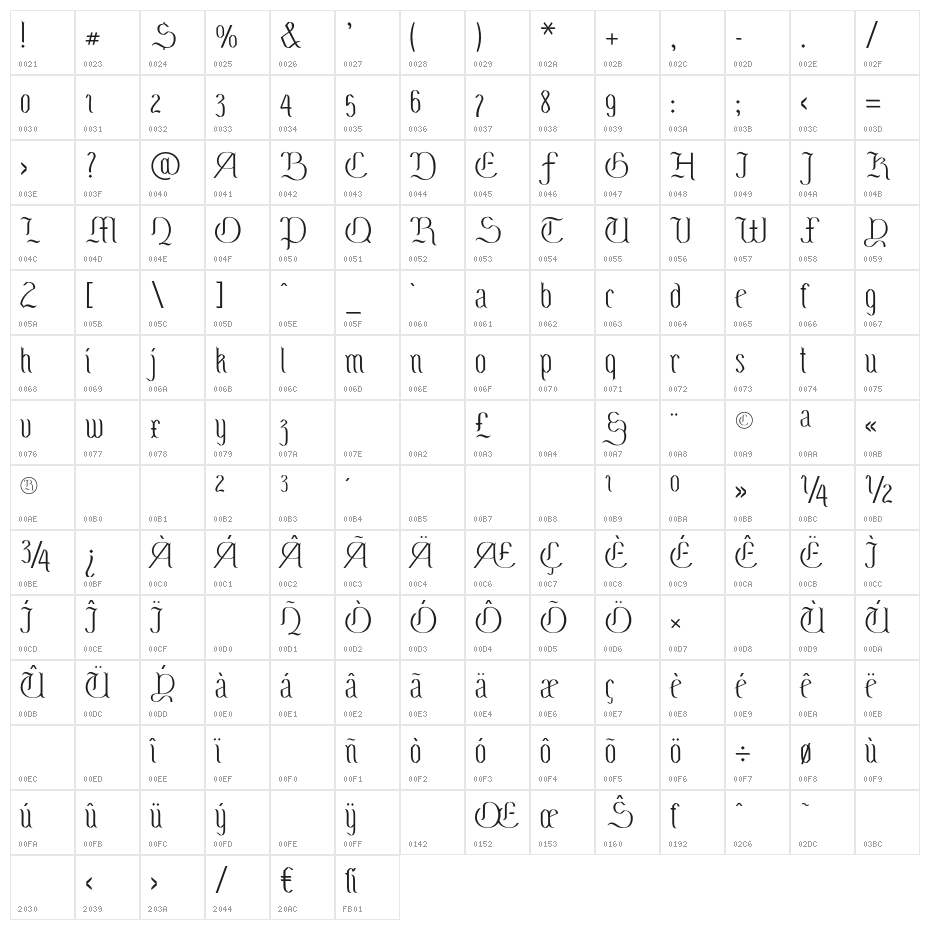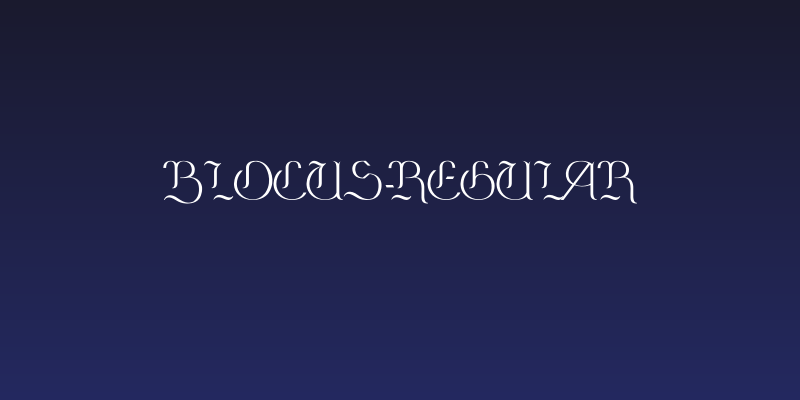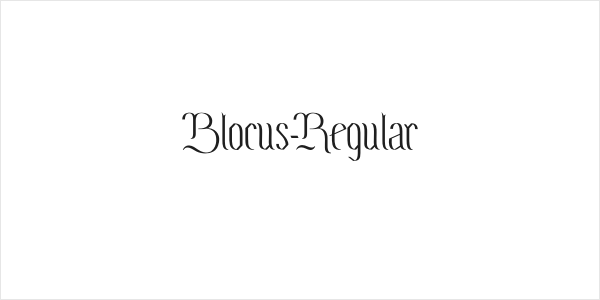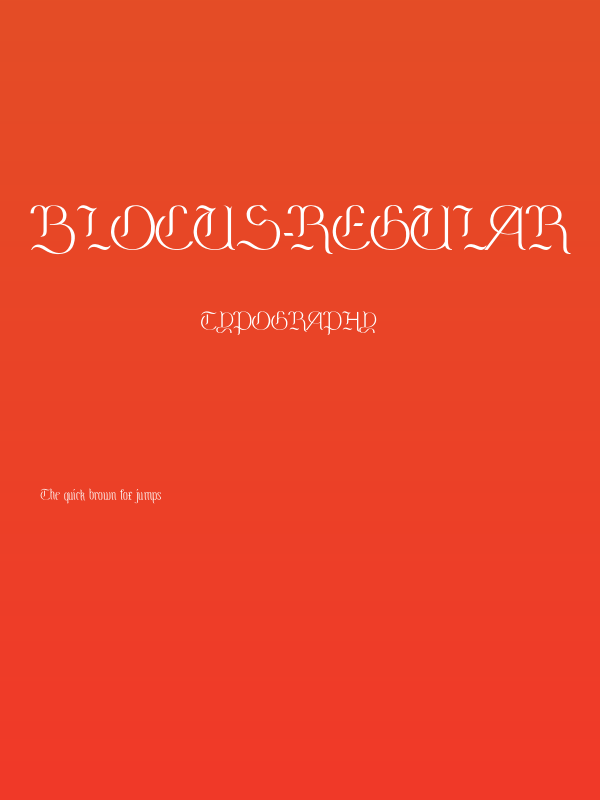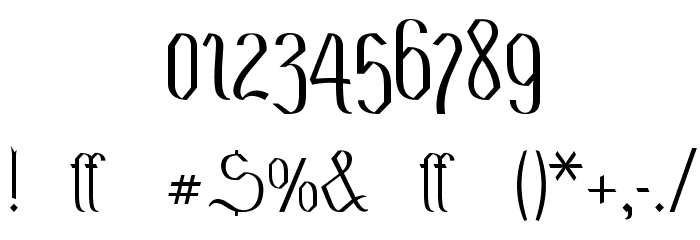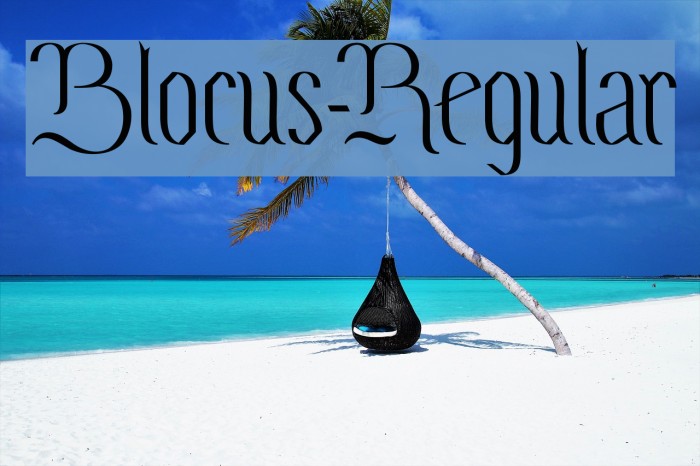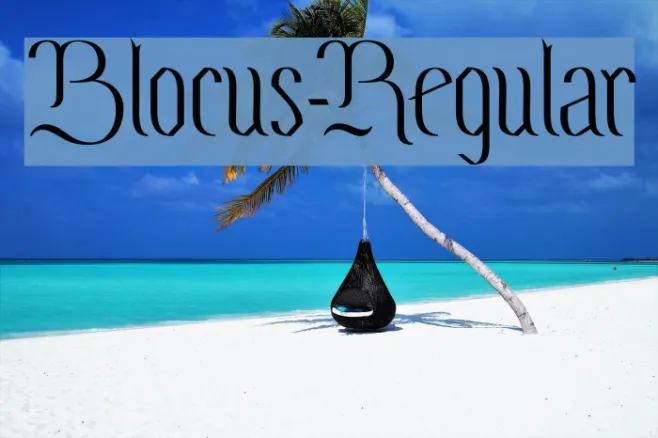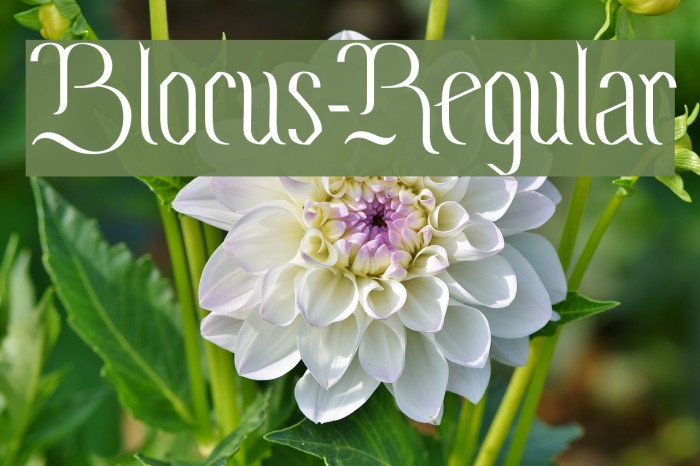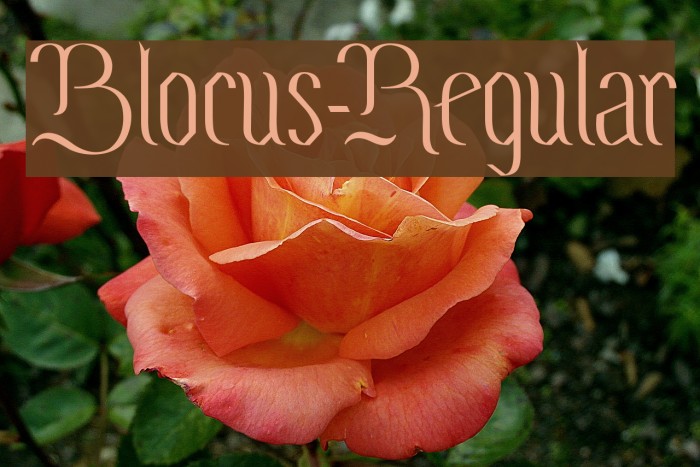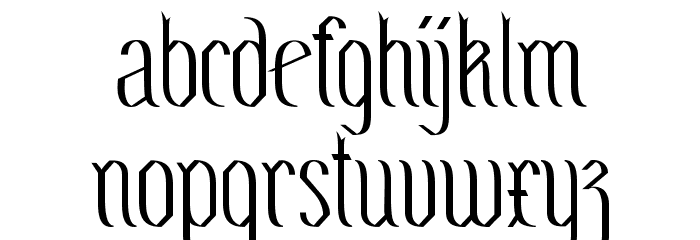
Blocus-Regular Font
Blocus-Regular Description
This font features a unique blend of traditional and modern elements, characterized by its decorative and intricate design. The uppercase letters exhibit a calligraphic style with elegant curves and flourishes, while the lowercase letters maintain a more streamlined appearance with subtle serifs. The numerals are distinct and maintain the decorative theme, ensuring consistency throughout the typeface. Special characters are creatively designed, adding to the font's artistic appeal. This font is ideal for projects that require a touch of sophistication and creativity.
| Proposed Projects | Ideal for invitations, branding, logos, and artistic projects that require a sophisticated touch. |